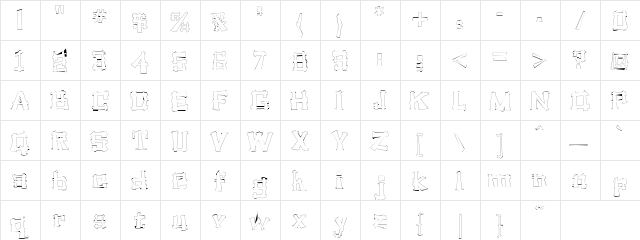
SoulManure Outline Regular
Design Context for SoulManure Outline Typeface
SoulManure Outline brings ornamental detail and strong personality to headlines and identities, where visual impact matters more than quiet functionality.
Font Pairing: Pair with a clean neutral sans-serif for body copy to let SoulManure Outline's character lead without overwhelming the composition.
Pro Tip: Treat SoulManure Outline as the centrepiece of your typographic hierarchy. One strong heading set in a decorative face can carry an entire layout.